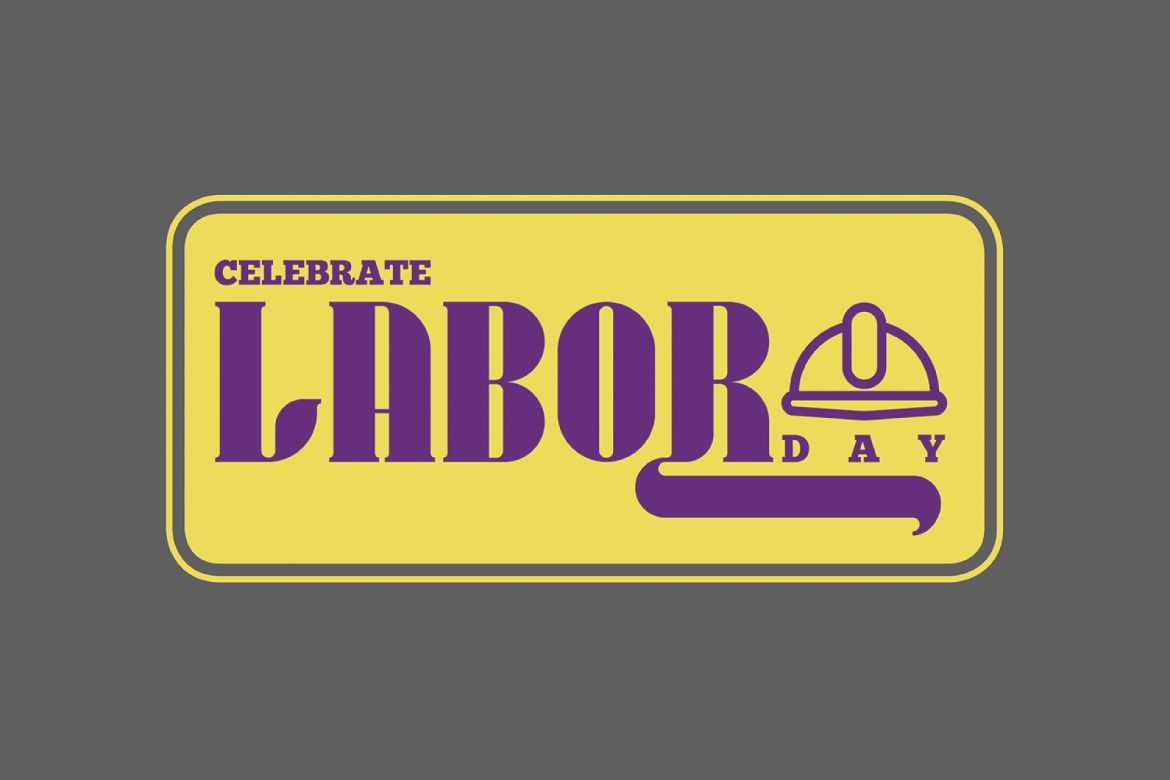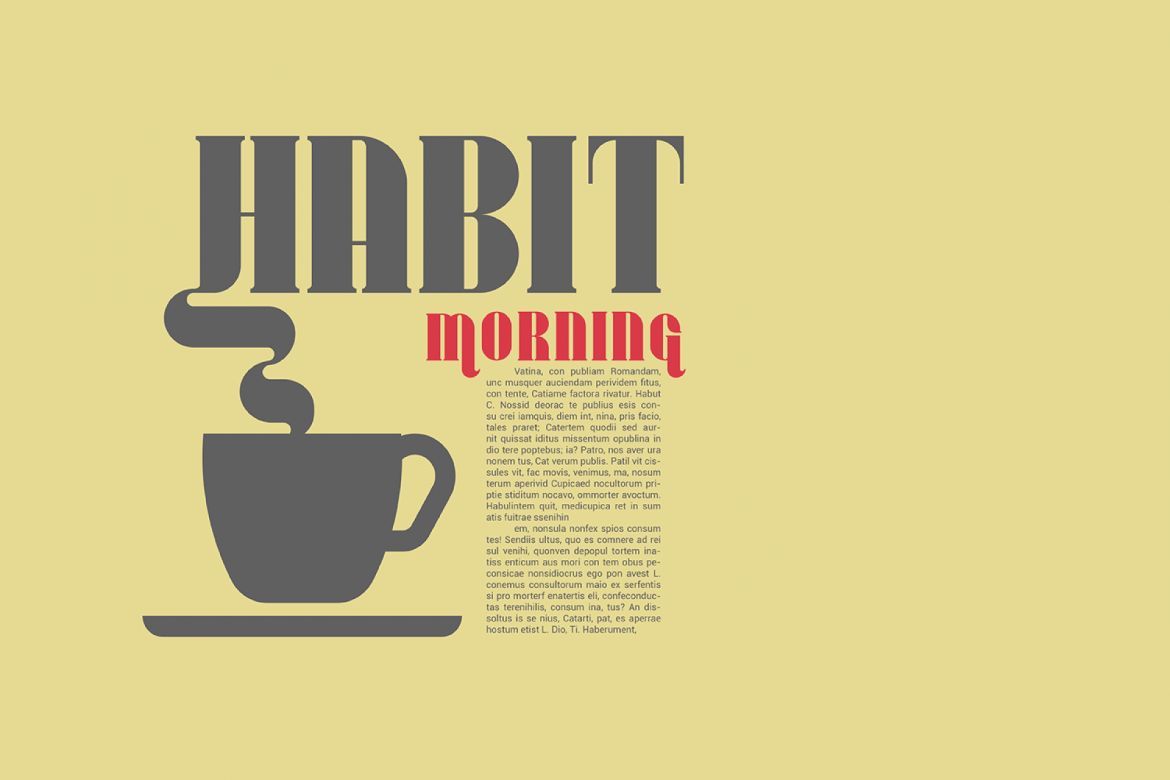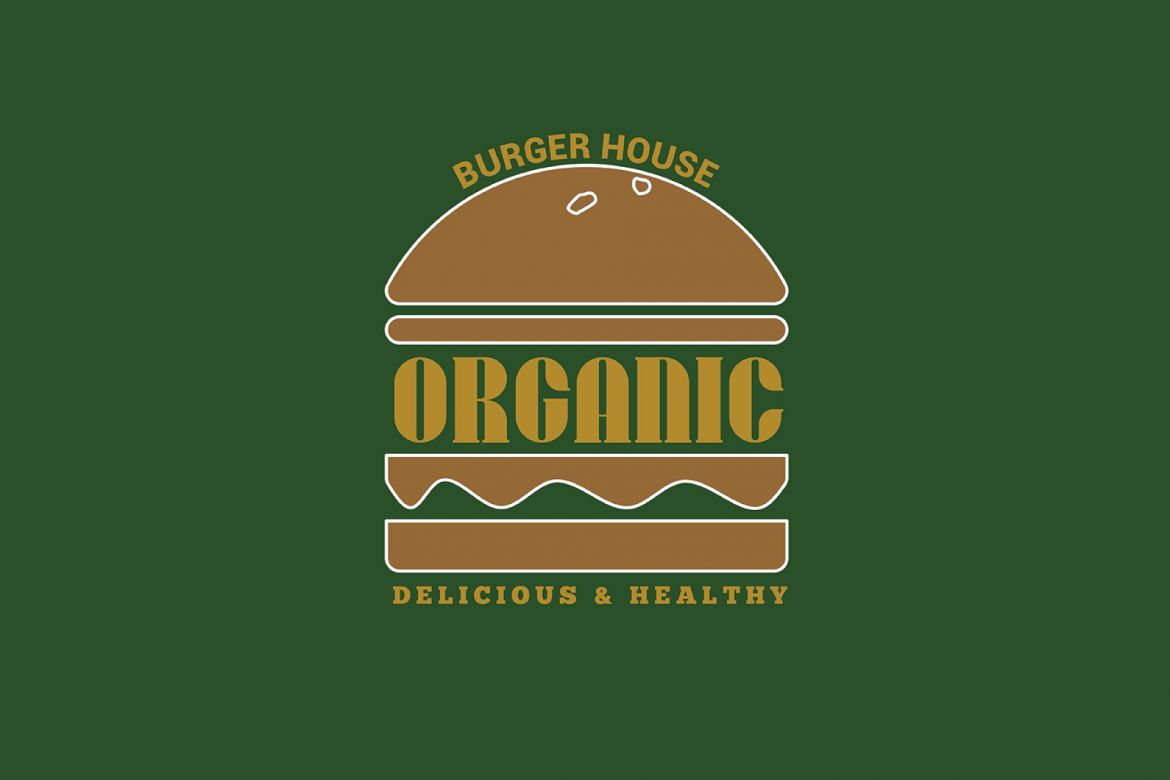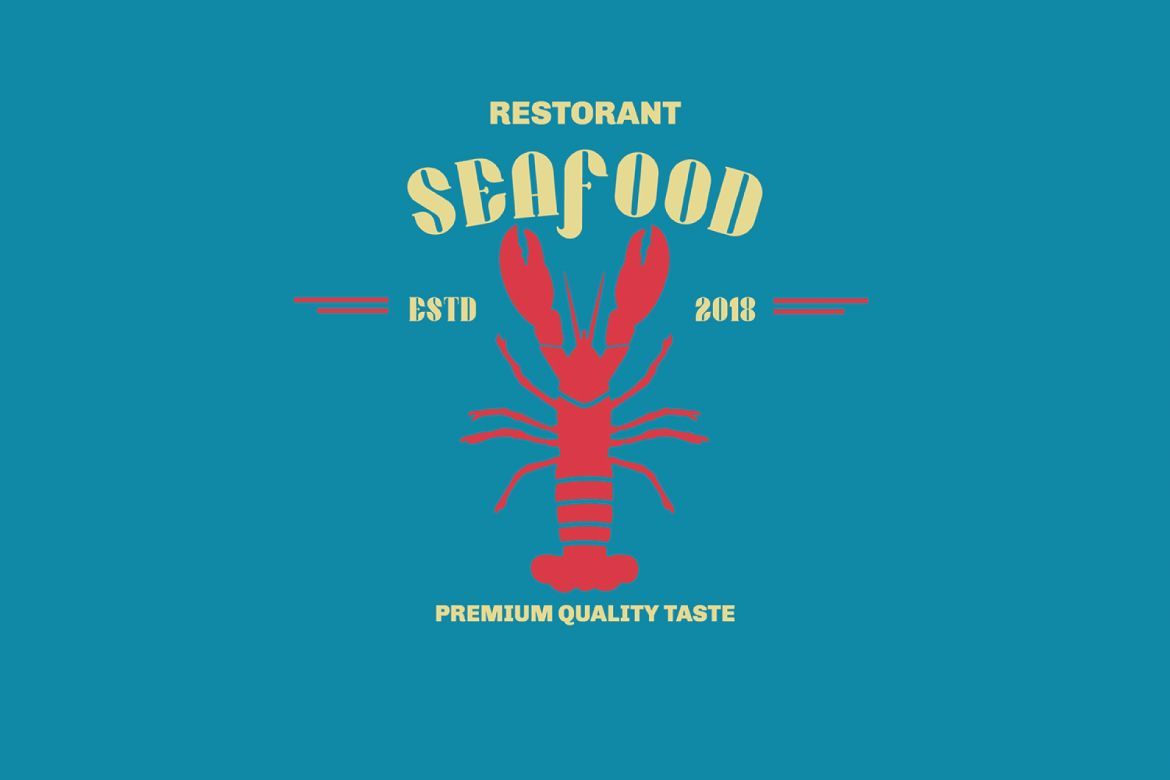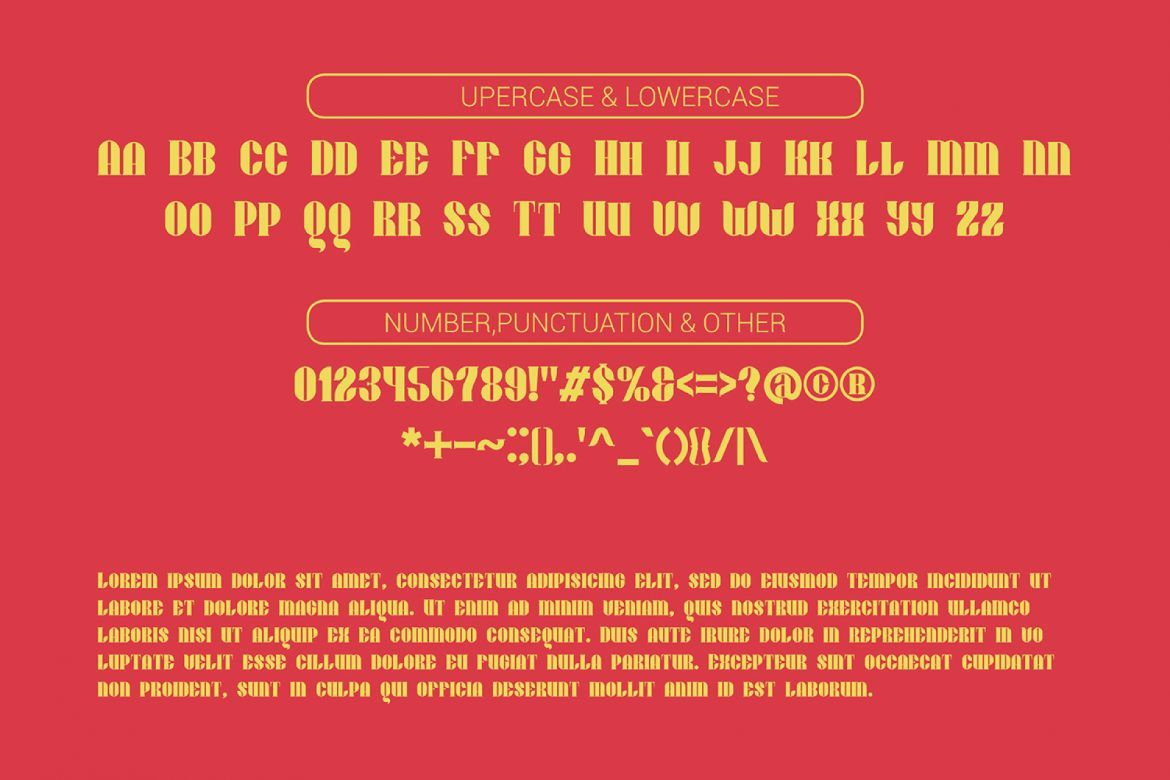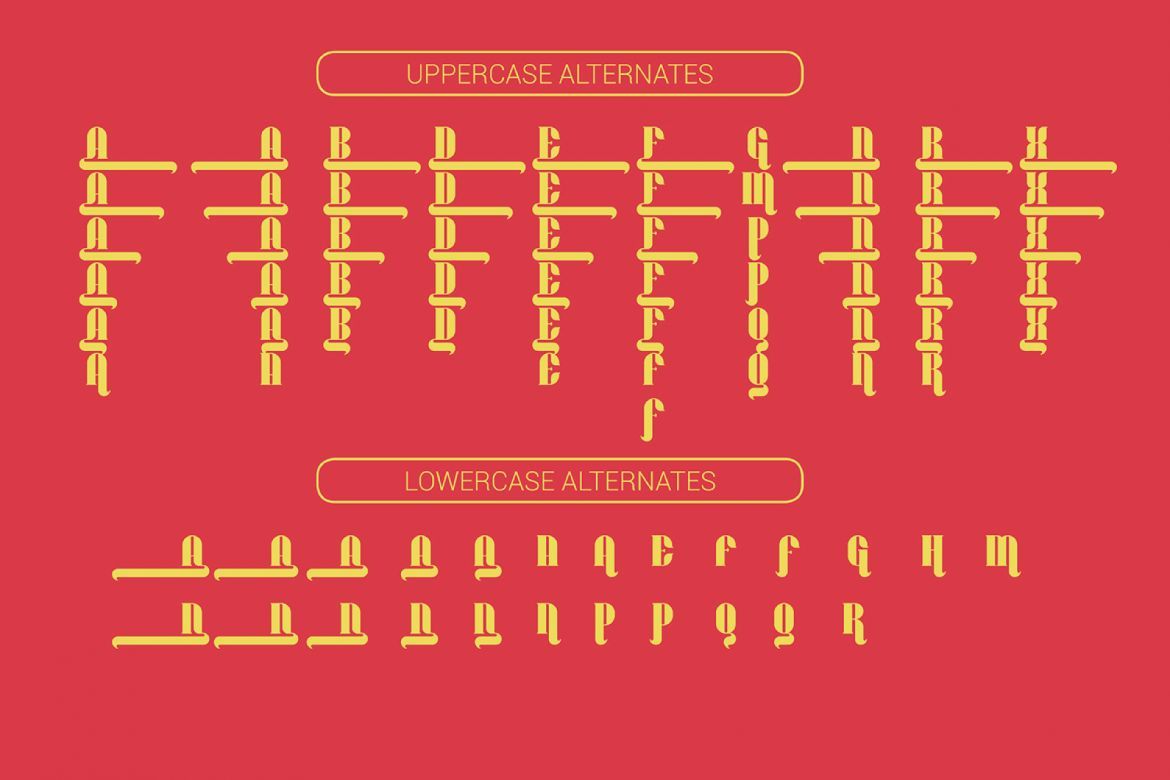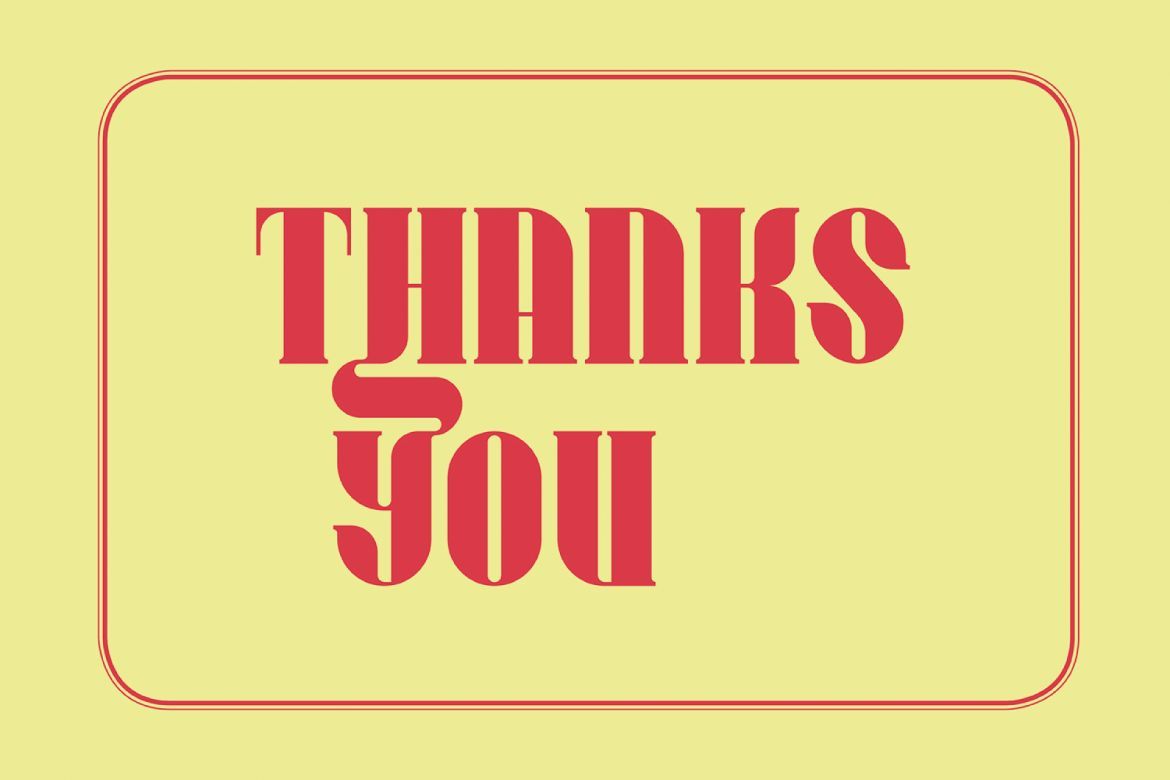
Queen Display Font
Present and the past are supposed to always be linked one to another. it should remain mortal as the history. the Queen was purposively designed for a true art lover who enjoy the past throught modern era.its concept can absolutely be used for the script in the modern era but still with the vintaged touch characterized by its comfort and smoothness. for you, a lover of both the past and the present, it's your time to put your choice on the beautiful and dynamic 'Queen'. Enjoy the masterpiece of the Queen.
• designed with a bold size that gives the impression of a vintage
• queen fonts are equipped with alternative letters that look cute